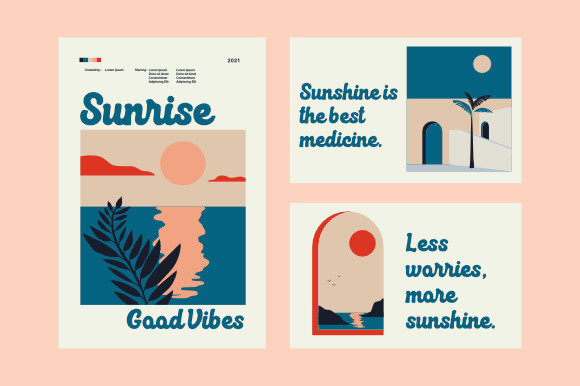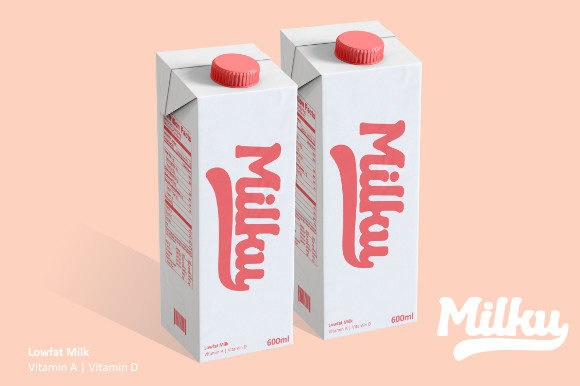
About Retro Beach Font
Retro Beach is a chic and paint brushed handwritten font. This font is PUA encoded which means you can access all of the glyphs and swashes with ease!